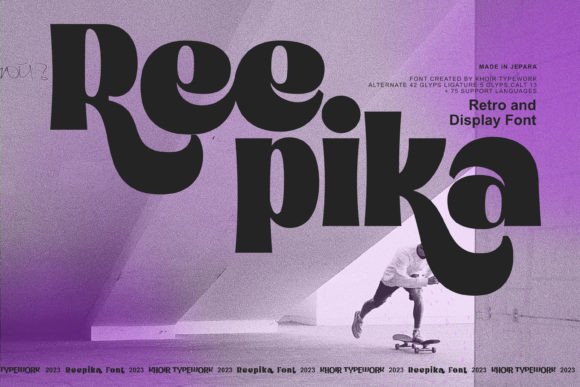
Introducing Reepika, the font that will make your designs pop! Inspired by the groovy styles of the 70s and 90s, Reepika is a thick serif font that oozes streetwise style. Its unique blend of retro cool and modern edge makes it the perfect choice for logos, posters, branding, album covers, fashion, apparel, and more.
Reepika is not just another font; it's a statement. Its bold, confident strokes will command attention and make your designs stand out from the crowd. Whether you're creating a logo for a cutting-edge fashion brand or designing a poster for an underground music event, Reepika will add an instant touch of cool.
But Reepika is more than just a pretty face. It's also incredibly versatile, making it the perfect choice for a wide range of design projects. Need a font that will make your headlines pop? Reepika has got you covered. Looking for a font that will add a touch of retro flair to your packaging design? Reepika is the perfect choice. With its PUA encoding, you can access all of Reepika's delightful glyphs and swashes with ease, making it easy to create truly unique designs.
Unlock your creativity with Reepika, the font that will make your designs shine.